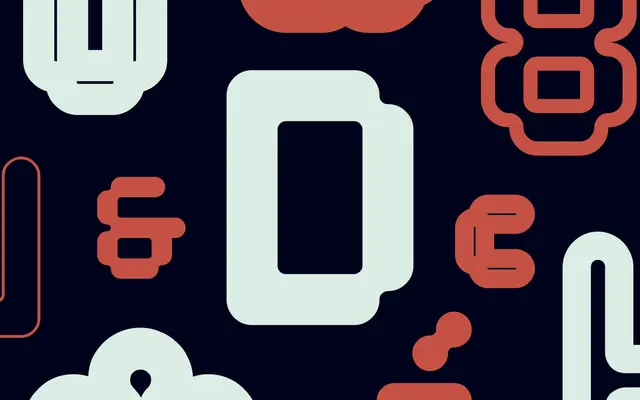
Tephra
Dalton Maag · Hamish Muir · 2017
Tephra specimen from Dalton Maag
A layered modular display by Hamish Muir with six styles built to stack in different colours and produce one-of-a-kind compositions.
A modular display family by Hamish Muir built as a layering system rather than a single typeface. Six styles, indexed Tephra 0, 12, 50, 100, 138 and 250, register against each other so designers can stack them in varying colours or effects to build bespoke compositions. Reach for it on posters, covers, identity work and any campaign where the typography itself needs to behave like a graphic system.
Dalton Maag describe Tephra as an ambitious display typeface offering an unusual approach to typography, with six styles designed to be layered with varying colours or effects so designers can create exceptional, one-of-a-kind results.